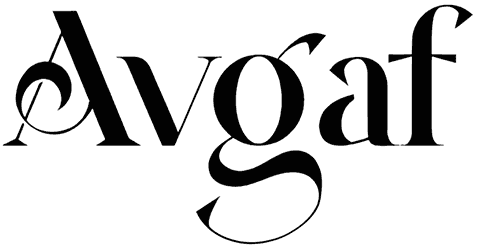
Avgaf Font
Avgaf is a glamorous fashion font that comes with a simple and sturdy form, thus it can boost a sense of formality, professionalism, momentum, and confidence in all of your creative ideas, and makes them look much more tempting to the audience.